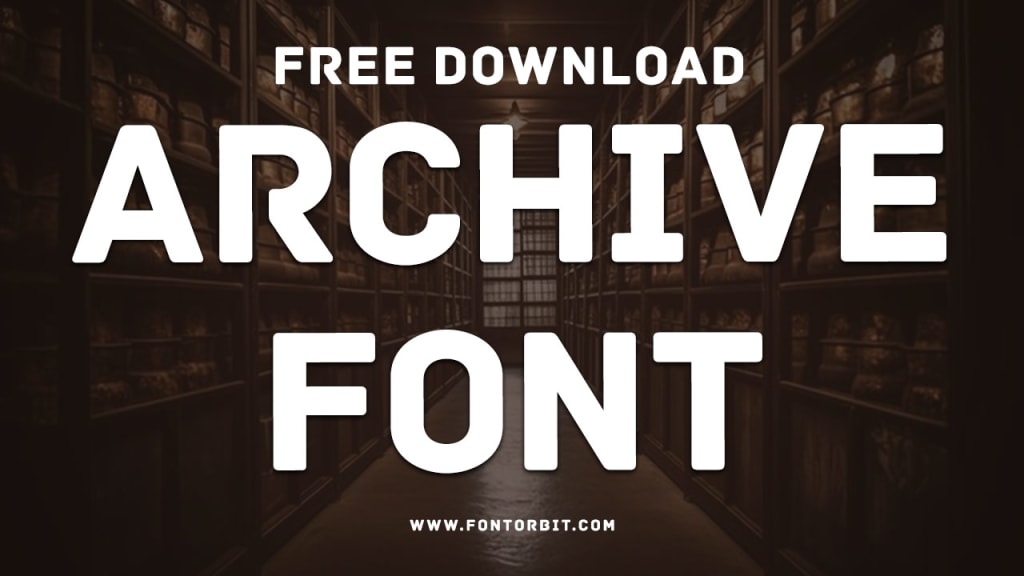
Archive Font: A Timeless Typeface for the Digital Era
Archive Font
In the vast world of typography, certain fonts rise above the rest due to their versatility, aesthetic appeal, and functionality.
Among these is the Archive Font, a modern typeface that has become a favorite for designers and typographers alike. Whether you are a graphic designer, brand strategist, or digital marketer, Archive Font offers something unique to elevate your projects.
What Is Archive Font?
Archive Font is a sans-serif typeface known for its clean, minimalist design. It combines a contemporary aesthetic with geometric precision, making it suitable for a wide range of applications. The font’s balanced structure ensures excellent readability, while its bold presence commands attention.
This typeface is widely used in branding, editorial design, web development, and marketing campaigns. Its modern yet timeless design has made it a staple for both print and digital media.
Characteristics of Archive Font
Geometric Design: Archive Font features sharp, clean lines and proportional shapes, ensuring a harmonious visual appeal.
Versatility: It is suitable for a variety of uses, including headlines, logos, and body text.
Readability: The font’s legibility makes it a great choice for both small and large text sizes.
Modern Appeal: With its contemporary design, Archive Font complements modern branding and design trends.
Multiple Weights: The typeface often comes in multiple weights, allowing for greater flexibility in design projects.
Why Choose Archive Font?
Choosing the right font is critical for effective communication, and Archive Font excels in this regard. Here are some reasons why it stands out:
Professional Look: Its clean design conveys professionalism and sophistication.
Timeless Design: Archive Font maintains relevance across various design eras, making it a safe choice for long-term projects.
Enhanced Branding: Its bold presence can strengthen brand identity, especially in logos and marketing materials.
Digital Compatibility: The font’s simplicity ensures it renders well across digital platforms, including websites and mobile apps.
Applications of Archive Font
The versatility of Archive Font means it can be used across diverse mediums. Some common applications include:
Logos: Its clen lines and bold presence make it perfect for creating memorable logos.
Posters: The font’s striking design helps in capturing attention in promotional materials.
Websites: Archive Font enhances readability and aesthetics in web design.
Editorials: Its balanced design makes it ideal for magazines, books, and newsletters.
Advertisements: It conveys messages effectively, thanks to its modern and professional look.
Conclusion
Archive Font stands as a testament to the power of simplicity and elegance in typography. Its clean, geometric design and versatility make it a go-to choice for designers across the globe.
Whether you’re working on a branding project, a website, or a marketing campaign, Archive Font provides the aesthetic and functional qualities you need. With its timeless appeal, this typeface is poised to remain a favorite for years to come.
FAQs About Archive Font
What type of font is Archive Font?
Archive Font is a sans-serif typeface known for its clean and modern design.
Can Archive Font be used for web design?
Yes, Archive Font is highly compatible with web design and ensures excellent readability on digital screens.
What are the best uses for Archive Font?
Archive Font is ideal for branding, logos, editorial designs, websites, and advertisements.
Does Archive Font come in multiple weights?
Yes, Archive Font often includes various weights such as light, regular, bold, and extra-bold, providing flexibility for different design needs.
Is Archive Font suitable for small text sizes?
Absolutely. The font’s geometric design ensures excellent legibility even at smaller sizes.